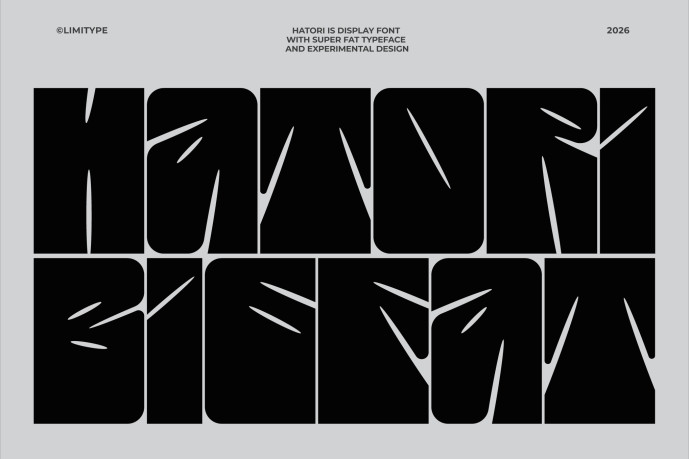
Hatori Fat Font
Designer: limitype
Hatori Fat Font is an extra-bold, condensed display font with sharp, aggressive, and modern character, designed to deliver strong visual impact. Suitable for headlines, logotypes, posters, merchandise, and branding that aims to stand out, this font ensures a bold, distinctive, and easily recognizable appearance across both print and digital media.